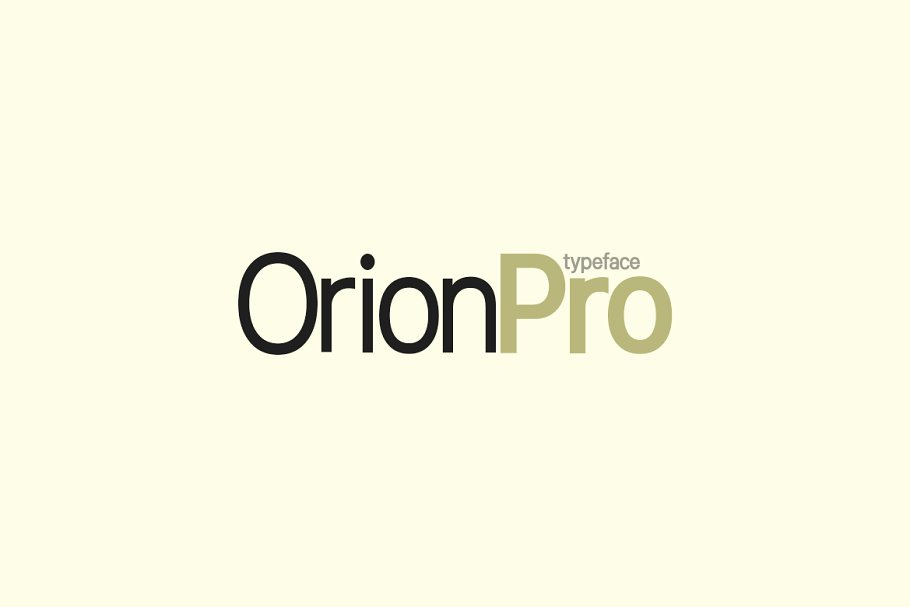
Orion Font
Orion Font is perfect for space exploration companies, astronomy organizations, celestial navigation services, futuristic technology brands, stellar research institutions, and cosmic-themed entertainment venues. Its stellar character makes it ideal for planetariums, aerospace engineering firms, satellite technology companies, star-gazing tour operators, space science museums, and any project requiring cosmic magnificence with celestial precision and interstellar sophistication appeal.
This font is exciting because it captures the infinite wonder and breathtaking scale of the cosmos while delivering exceptional functionality for organizations exploring the frontiers of space and scientific discovery. The astronomically crafted letterforms evoke images of distant galaxies, brilliant constellations, and the eternal quest for knowledge that drives humanity to reach for the stars, creating powerful connections with audiences fascinated by cosmic exploration and scientific advancement.
The Orion Font family typically includes Light, Regular, Medium, and Bold weights with stellar alternates, cosmic-inspired ligatures, and celestial decorative elements that enhance its astronomical personality. This comprehensive collection enables space professionals to create authoritative brand systems that maintain scientific credibility while providing flexibility for various astronomical applications requiring both technical precision and inspirational wonder.